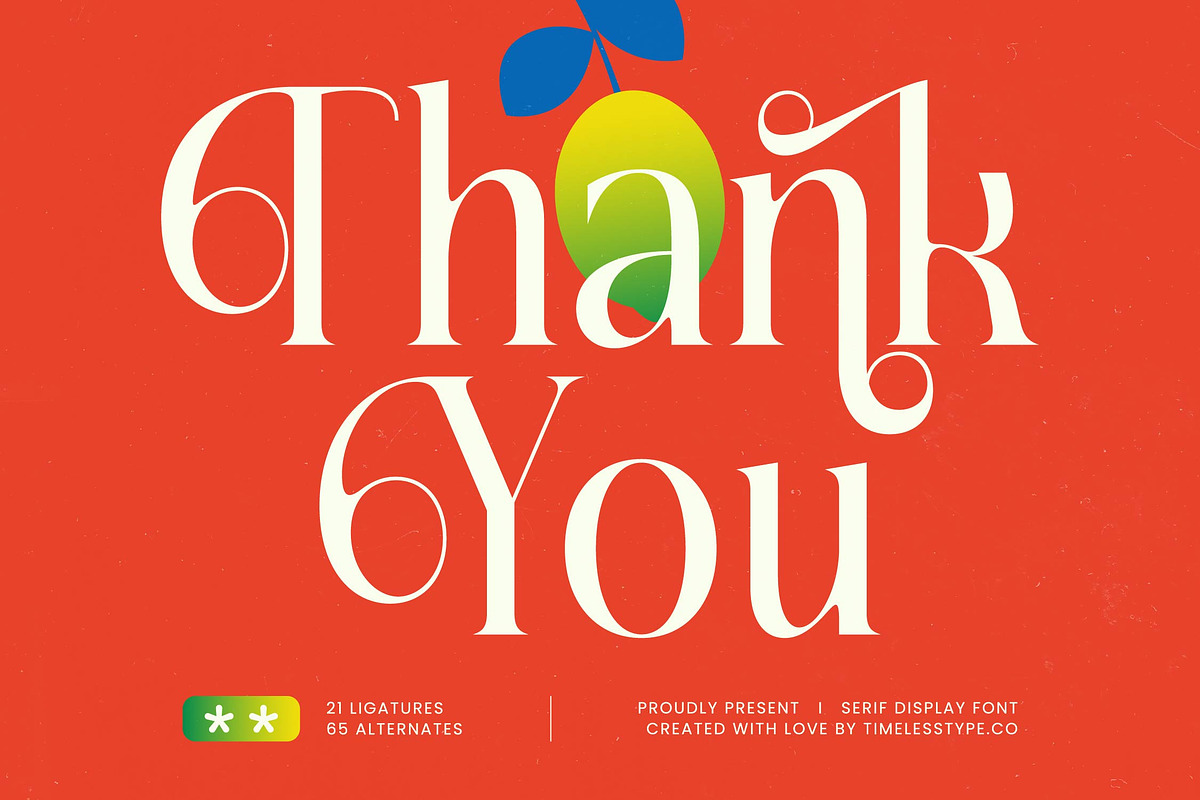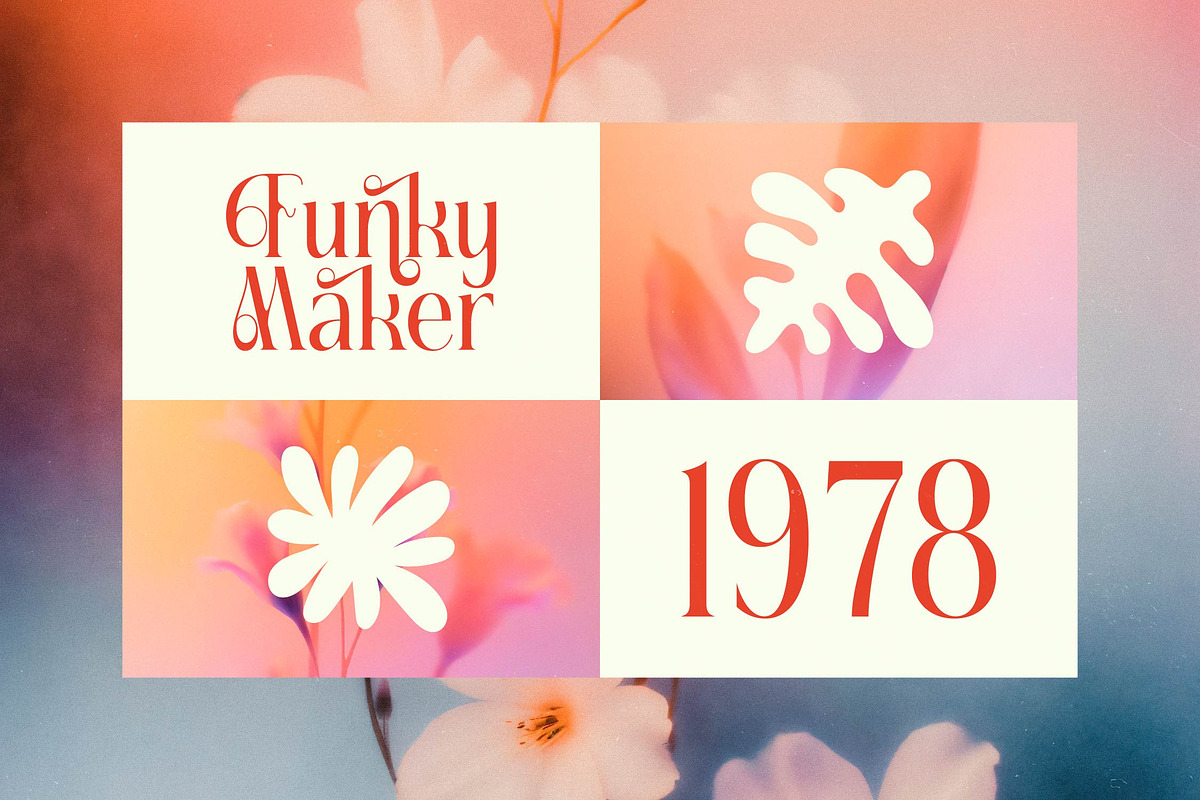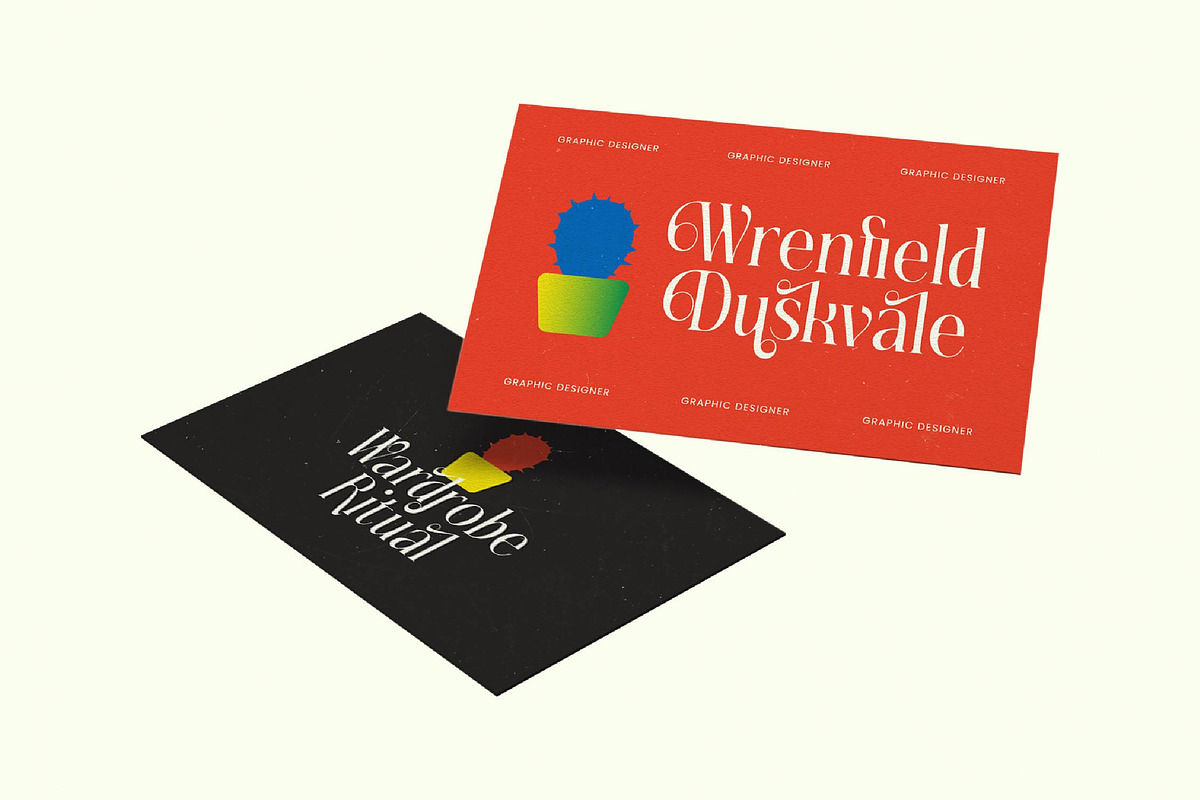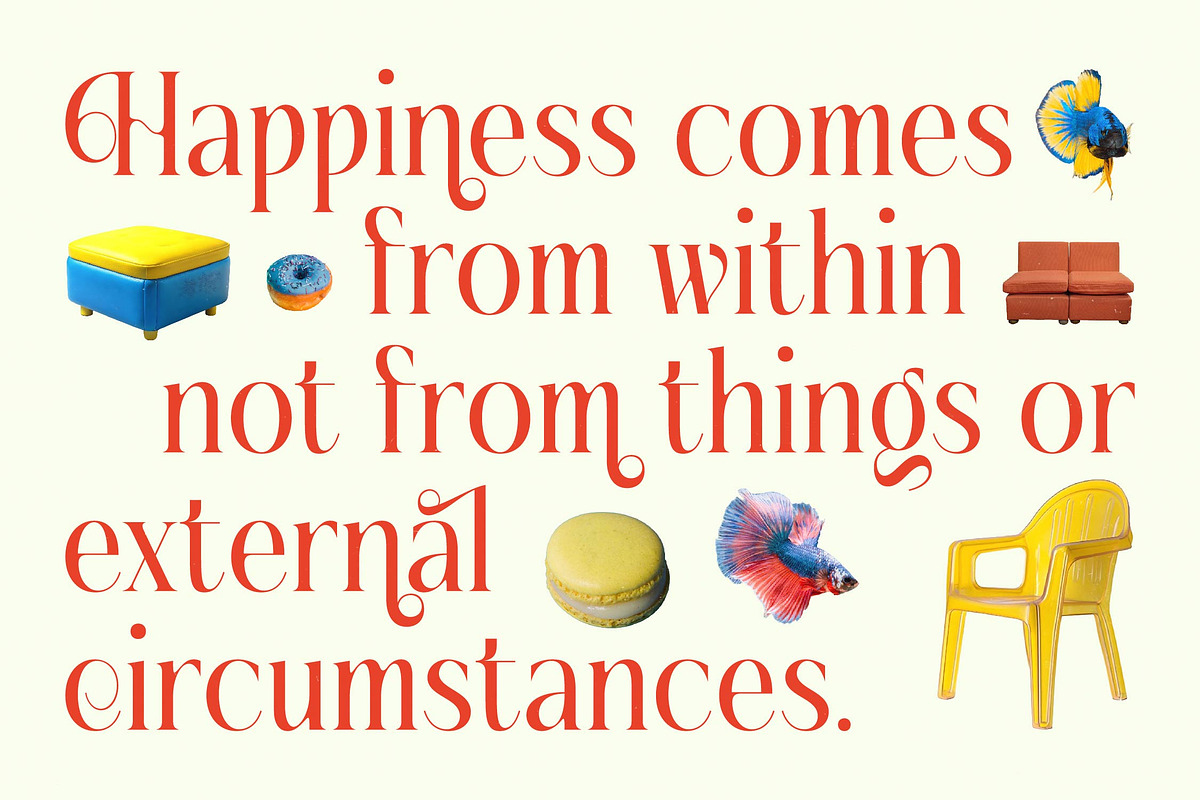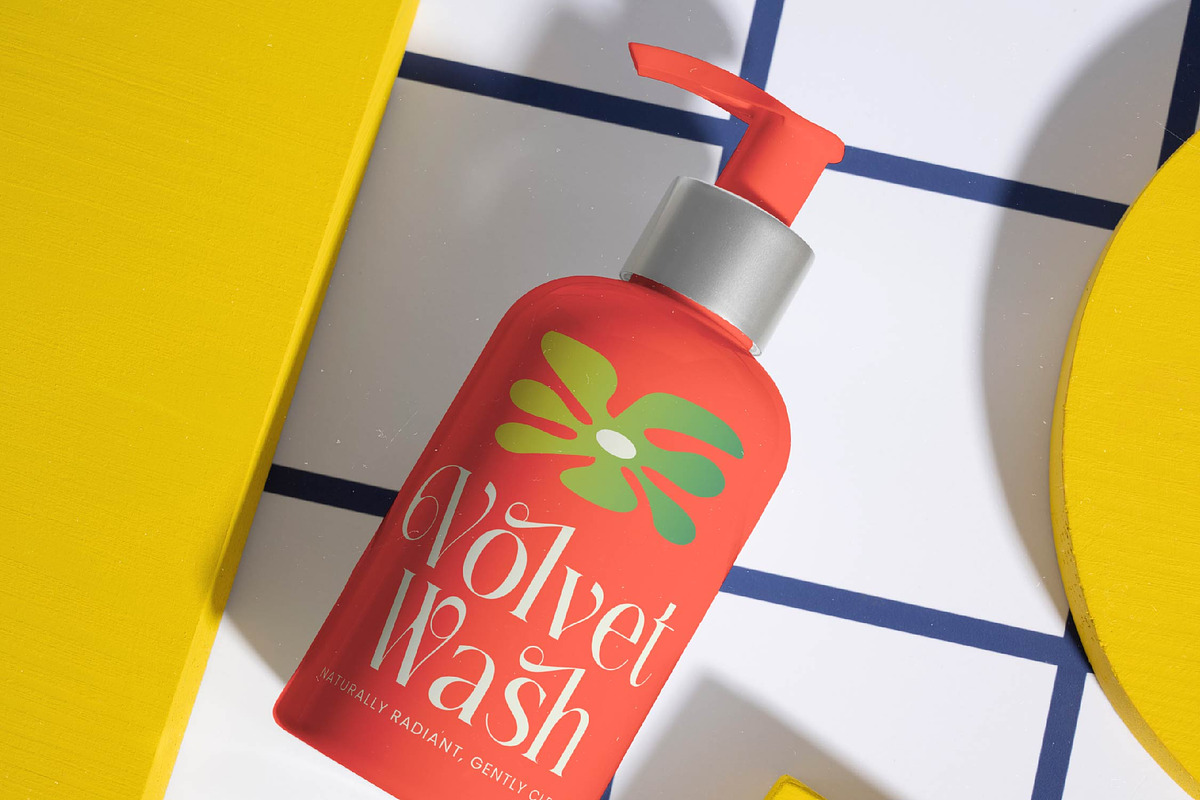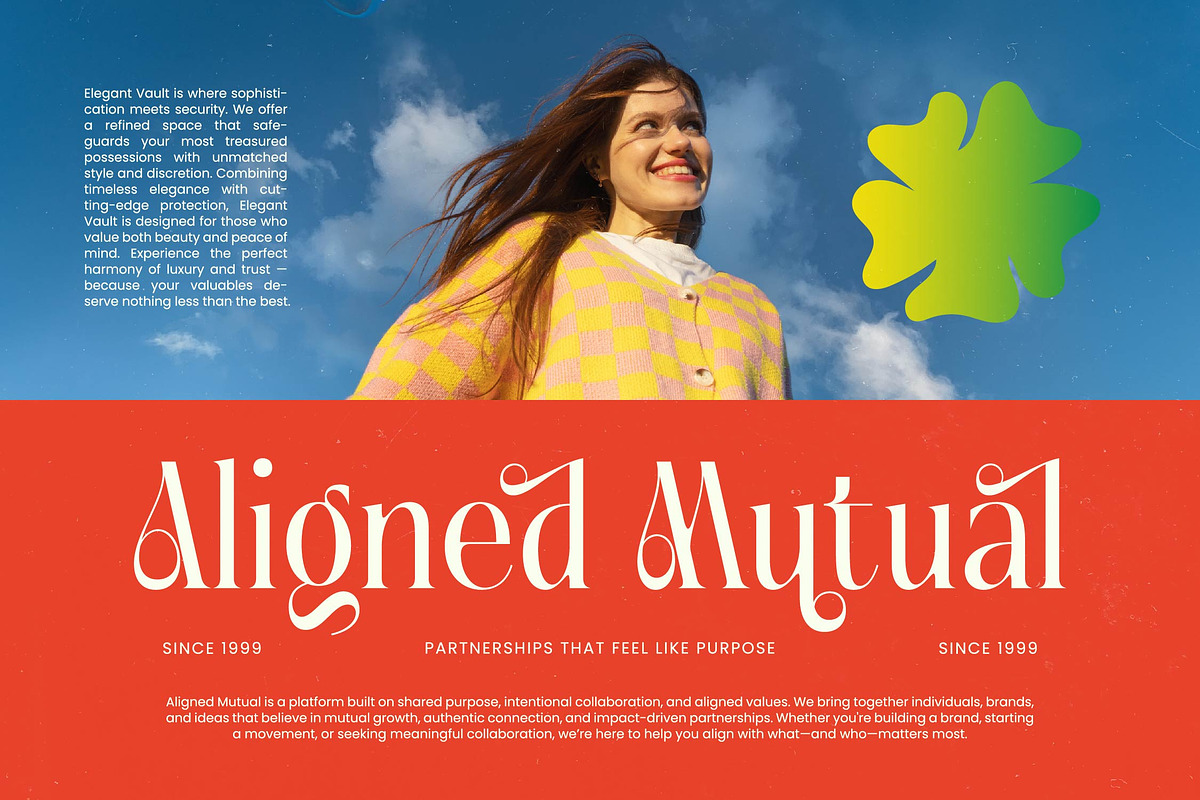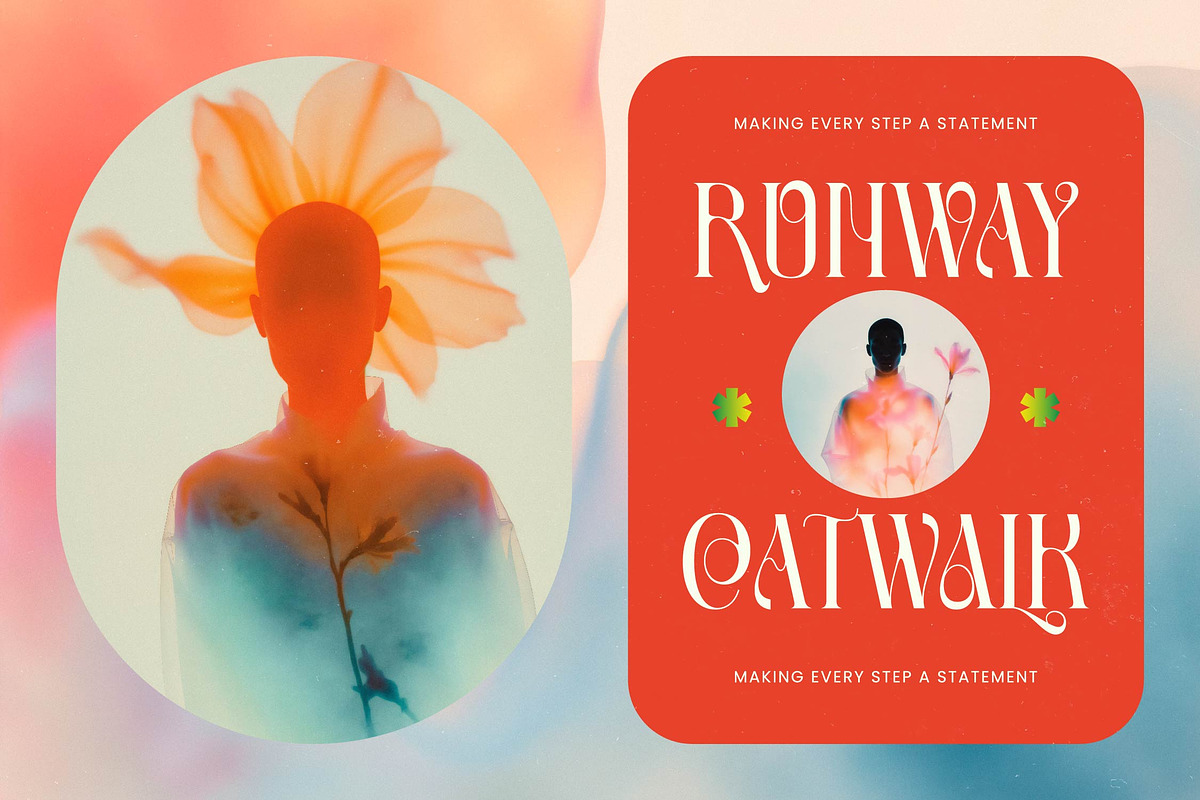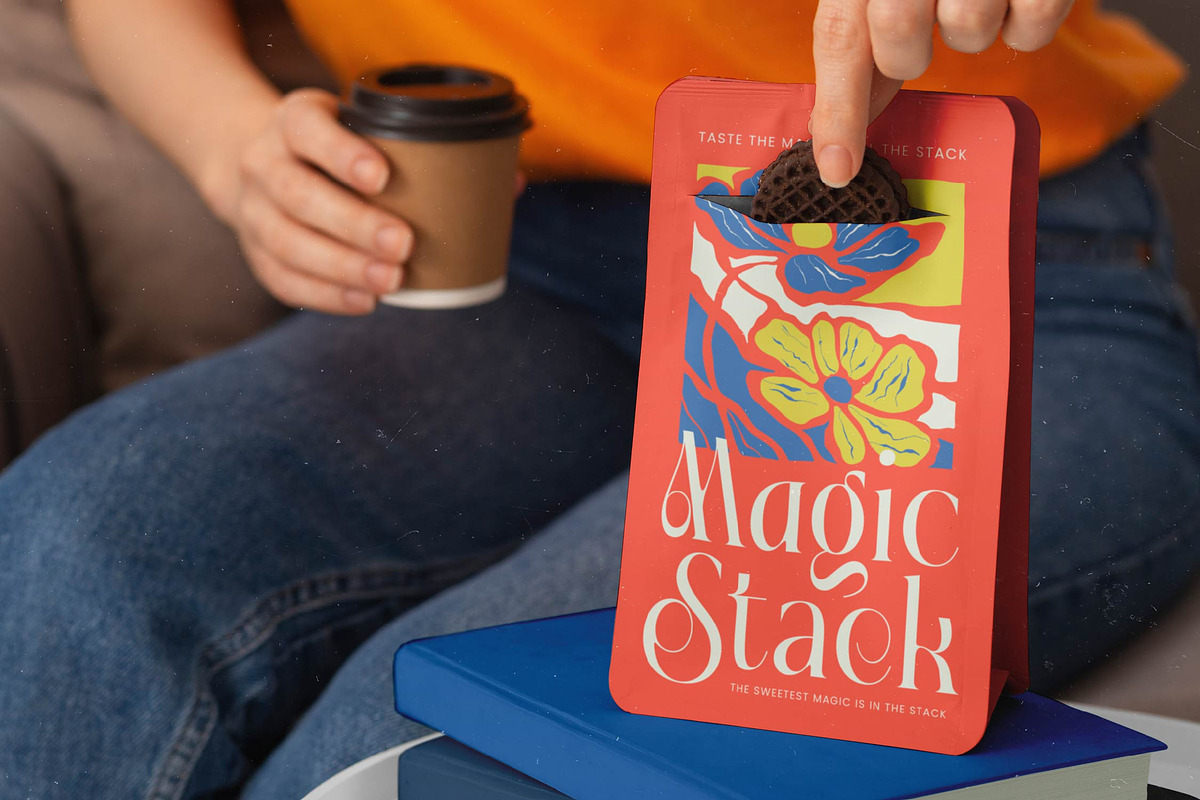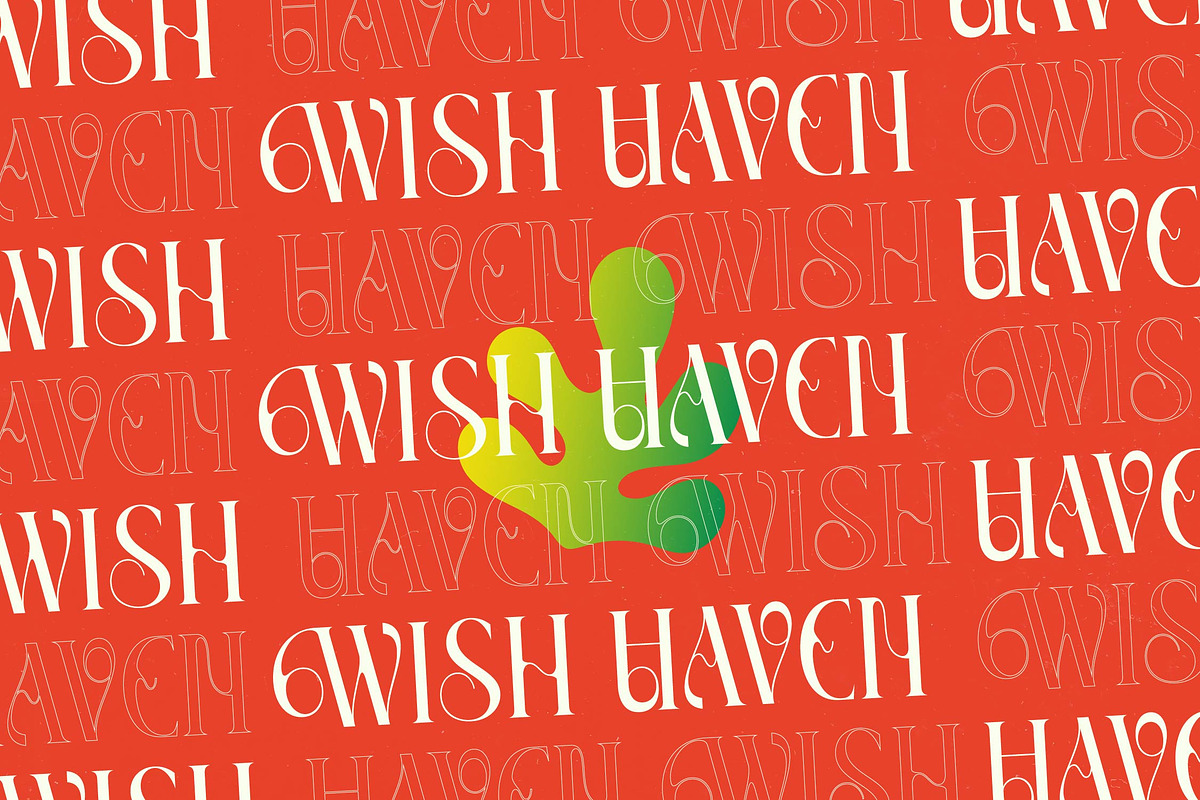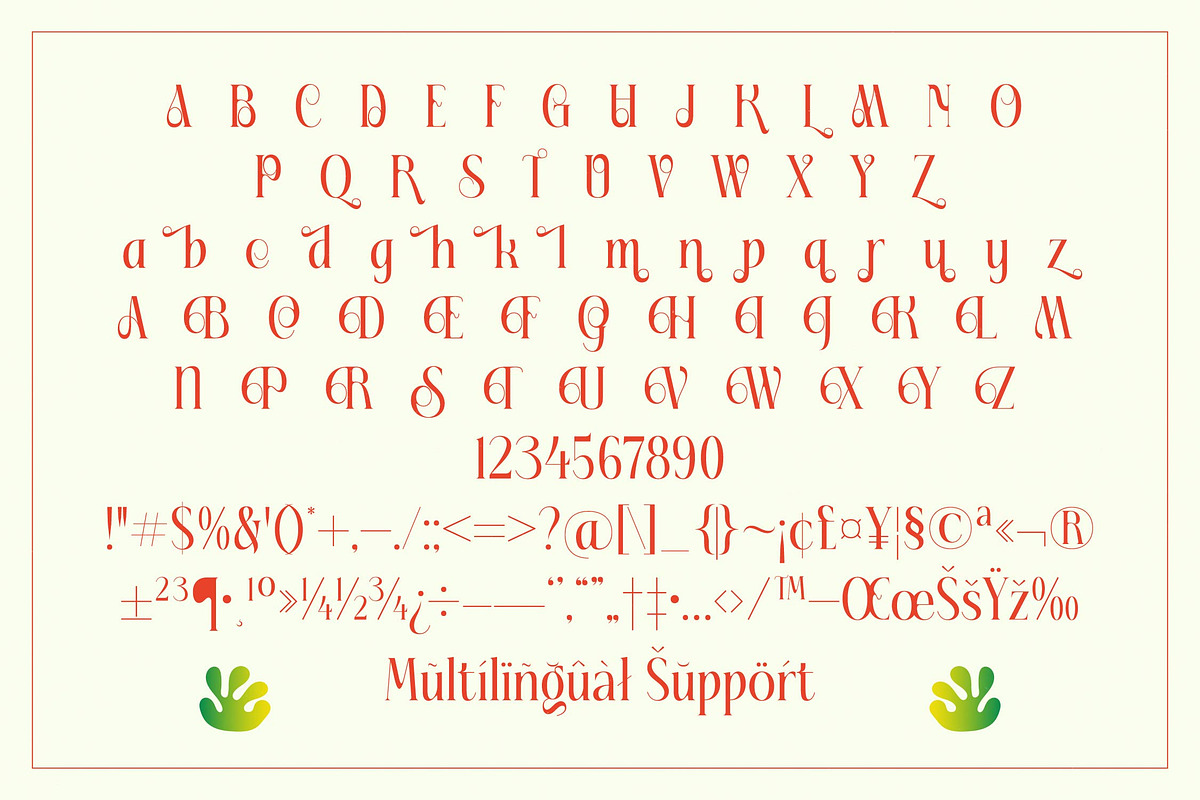
Fading Husker Modern Serif Font
Step into a world of refined elegance where every character tells a story of timeless sophistication with Fading Husker. This typeface is designed to command attention while maintaining a delicate balance of grace and power in every curve.
Drawing inspiration from the golden era of editorial design and the organic shapes of nature, this font evokes a sense of nostalgic warmth blended with contemporary sharpness. It is a visual celebration of contrast, where thin hairlines meet bold strokes to create a rhythmic dance on the page.
Embodying a modern serif display aesthetic, this typeface offers unparalleled luxury typography for projects that demand a high-contrast serif with a distinct editorial font feel. Its unique construction ensures a massive branding impact, making it an essential tool for designers who refuse to settle for the ordinary.
Aligned perfectly with the current modern serif trend, this typeface is a prime example of why editorial display fonts are leading the way in creative industries. By focusing on character-driven typography, it provides a fresh perspective on classic letterforms, allowing your layouts to feel both current and classic.
From high-end logo design to cohesive visual branding, this versatile font excels in editorial layouts, luxury packaging, and sophisticated wedding stationery. It is the perfect choice for the fashion industry, providing a chic and upscale look that elevates any creative composition.
The package includes a comprehensive suite of ligatures and alternates that allow for deep customization and unique typographic flourishes. With a full set of swashes and robust multilingual support including international characters, this font is ready for global design challenges.
- Ligature 21 Alternate 65